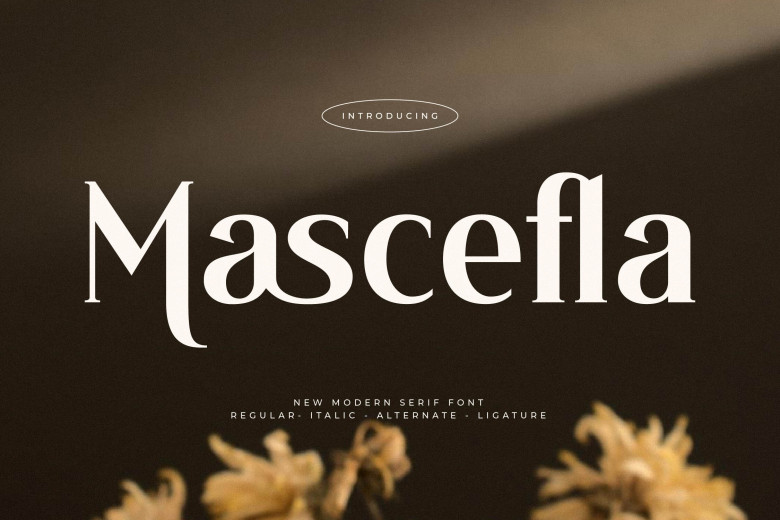
Mascefla Font
Mascefla is an elegant serif typeface ideal for logos, branding projects design, homeware packaging of products such as mugs and posters, quotes clothing bags cover for books as well as name cards, greeting cards, invitation cards, labels and watermarks photography special occasions and any other project requiring the assistance of Luxury serif font.
Mascefla Serif Font